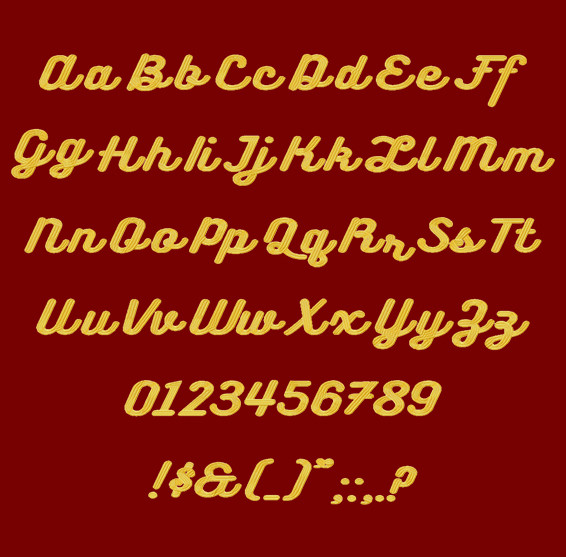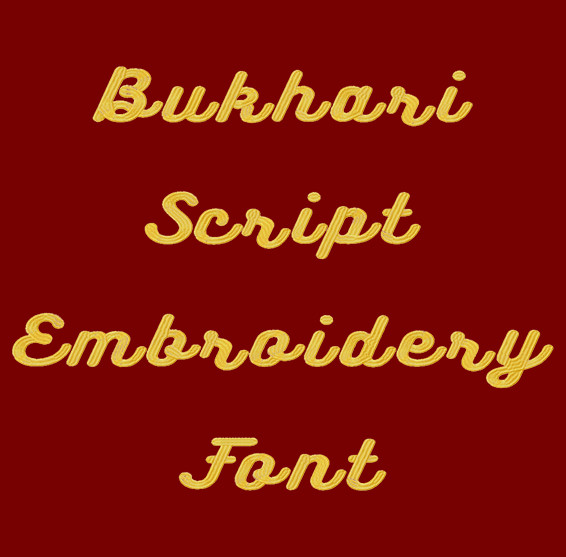
Chunky Cursive Font - Bukhari Machine Embroidery Font Now Includes BX Format!
Title: Bukhari machine embroidery font
This Chunky Cursive font is perfect for personalizing clothes, bags, towels and linens!